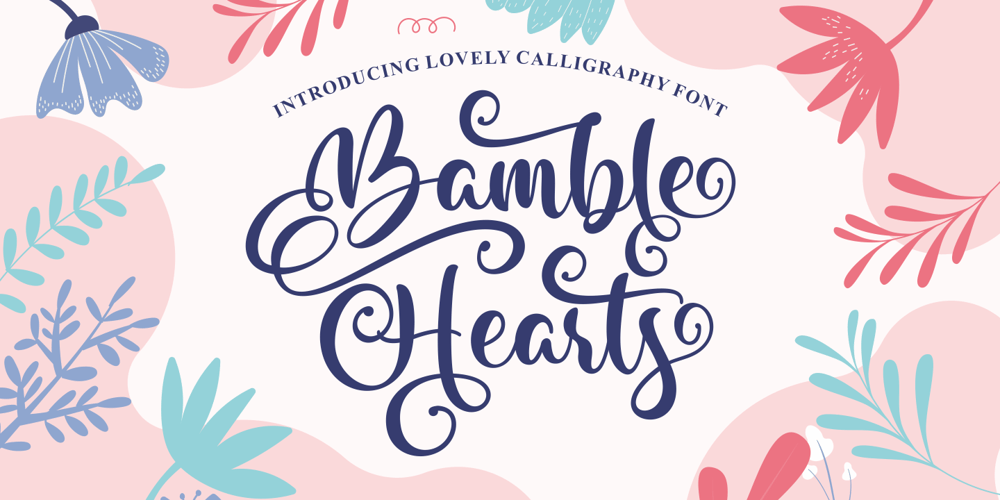
Bamble Hearts Font Family was designed by Riyadh Abuhafs and published by Awan Senja. Bamble Hearts contains 1 styles and family package options. Bamble Hearts is a lovely calligraphy font. It has a modern and elegant look and is perfect for logos, branding, invitations, photography, wedding stationary, labels, and every other design which needs an unique and luxurious touch.This font is PUA encoded which means you can access all of the cute glyphs and swashes with ease! It also features a wealth of special features including alternate glyphs and ligatures.